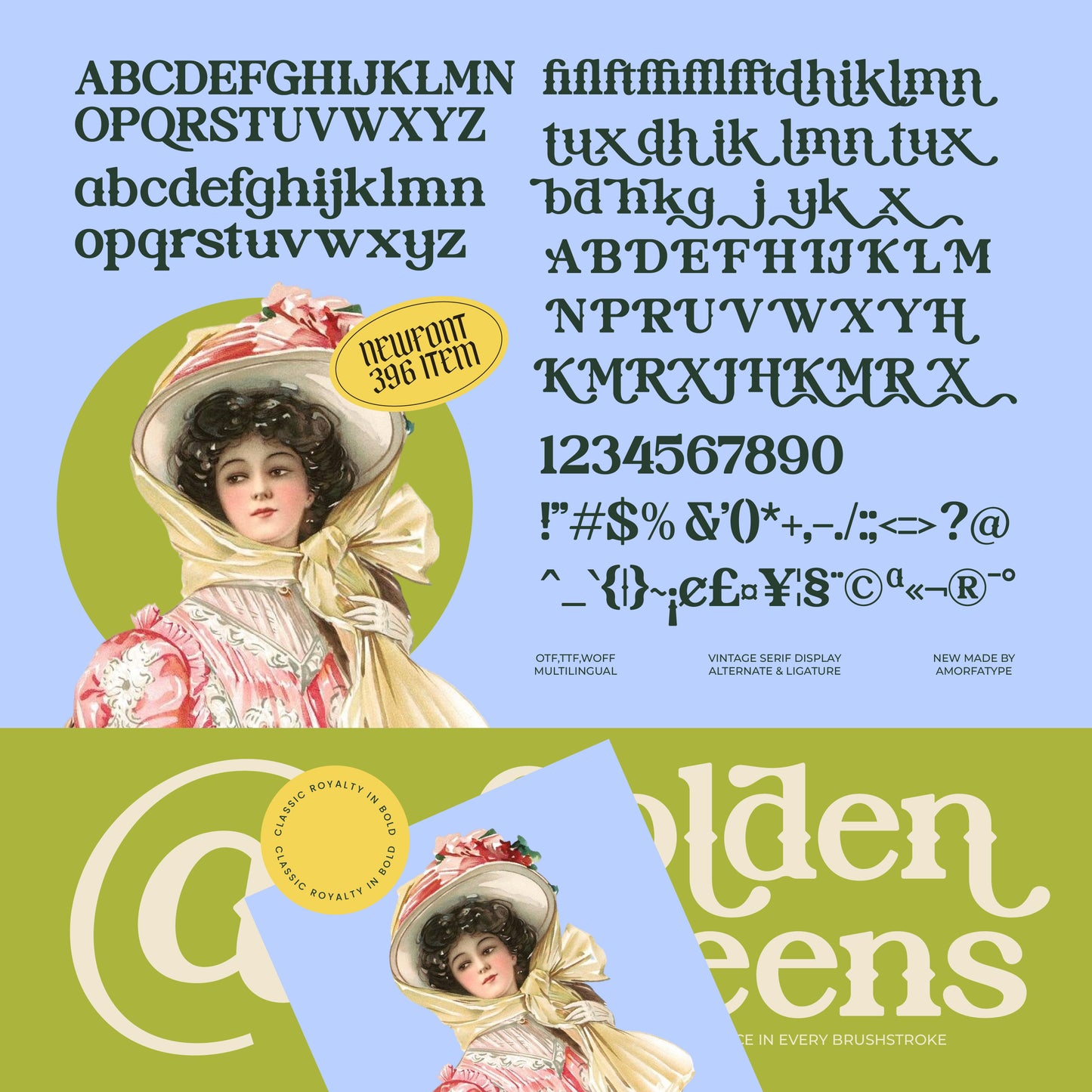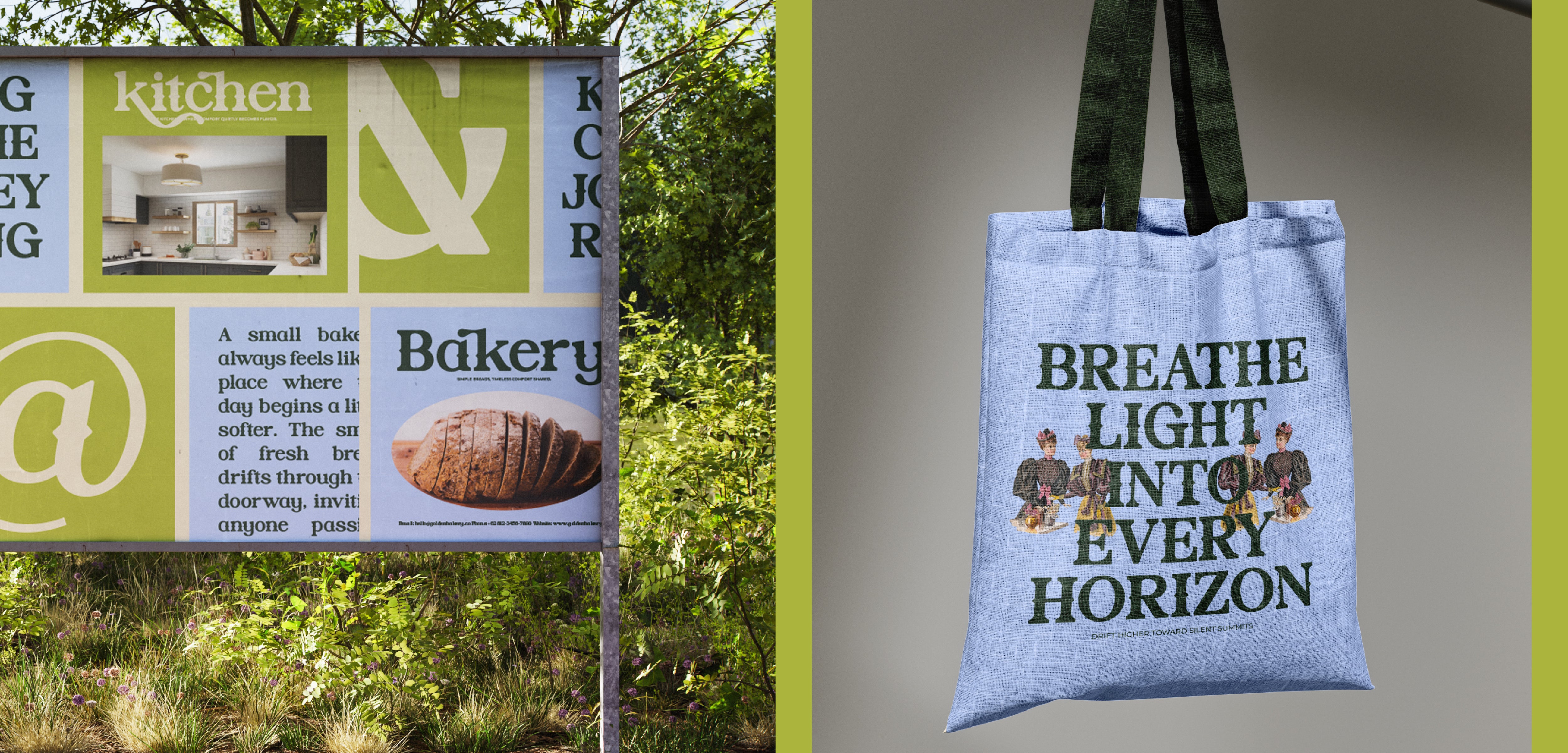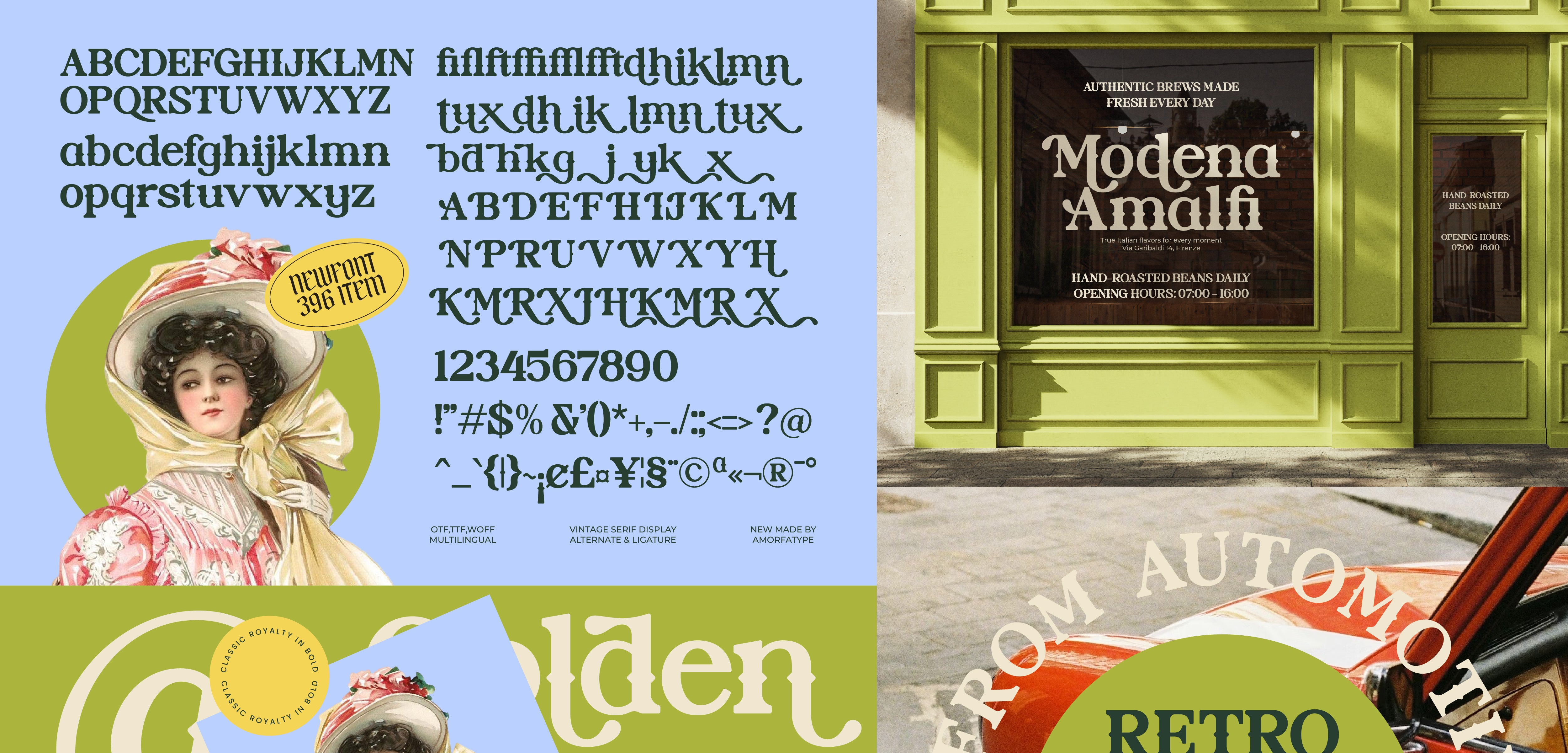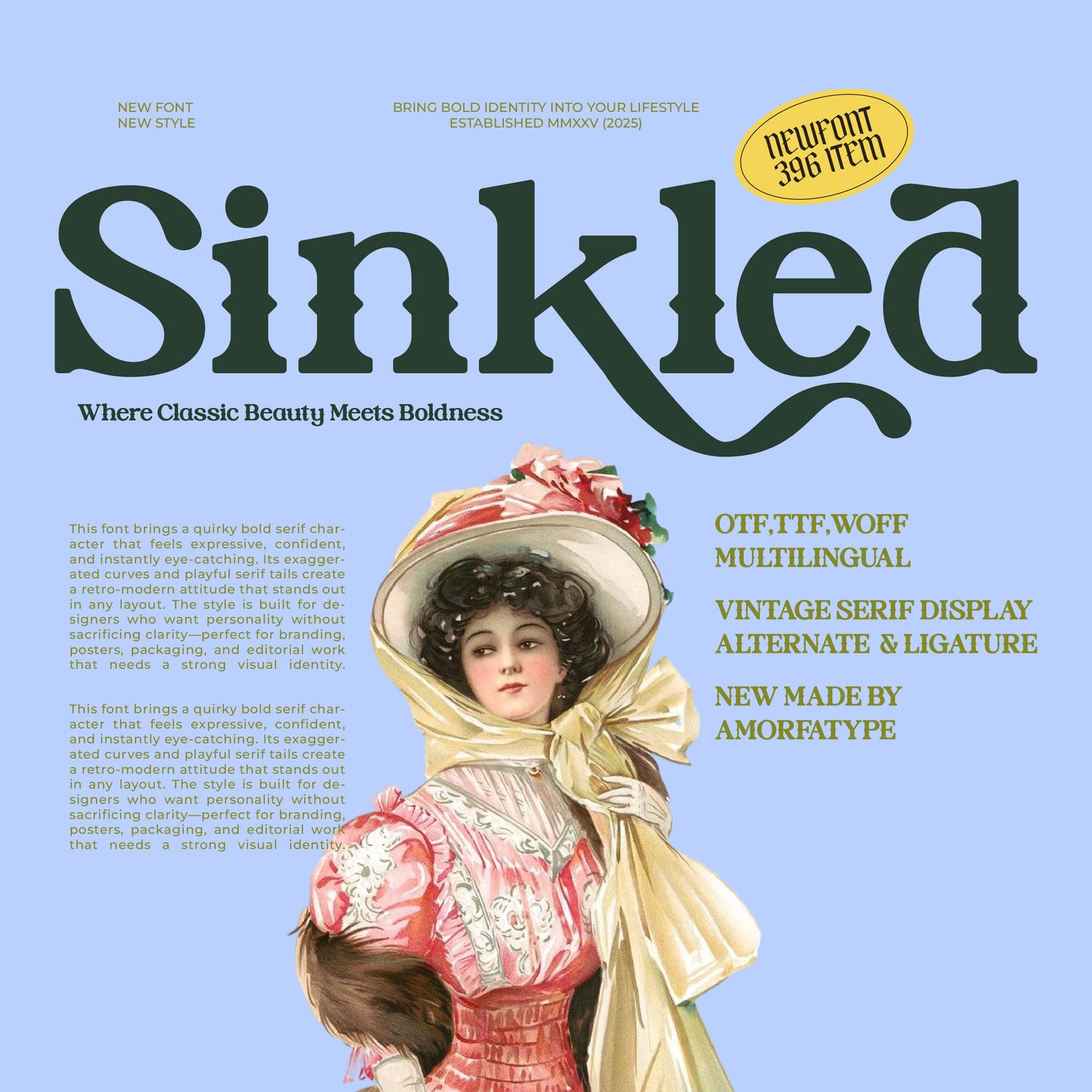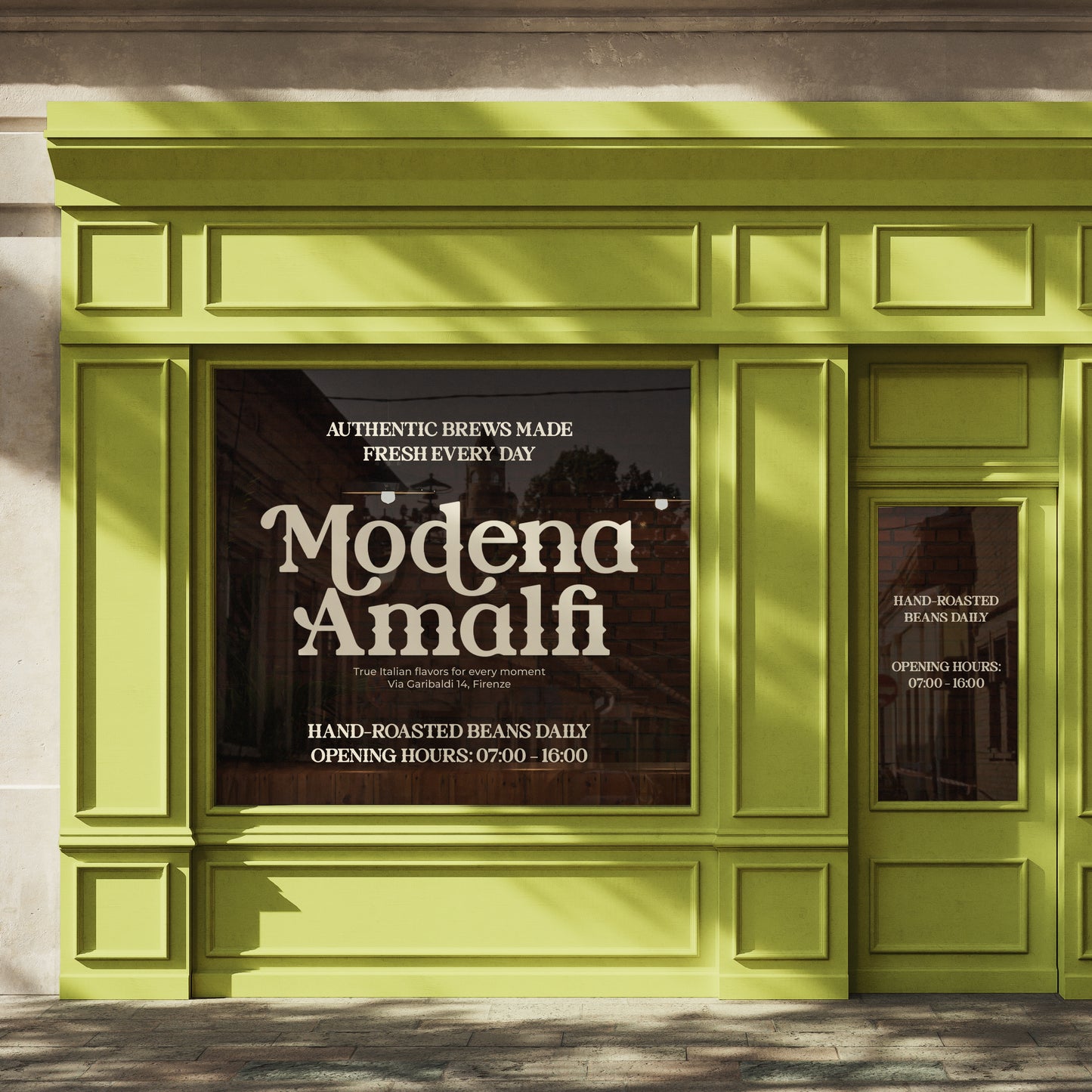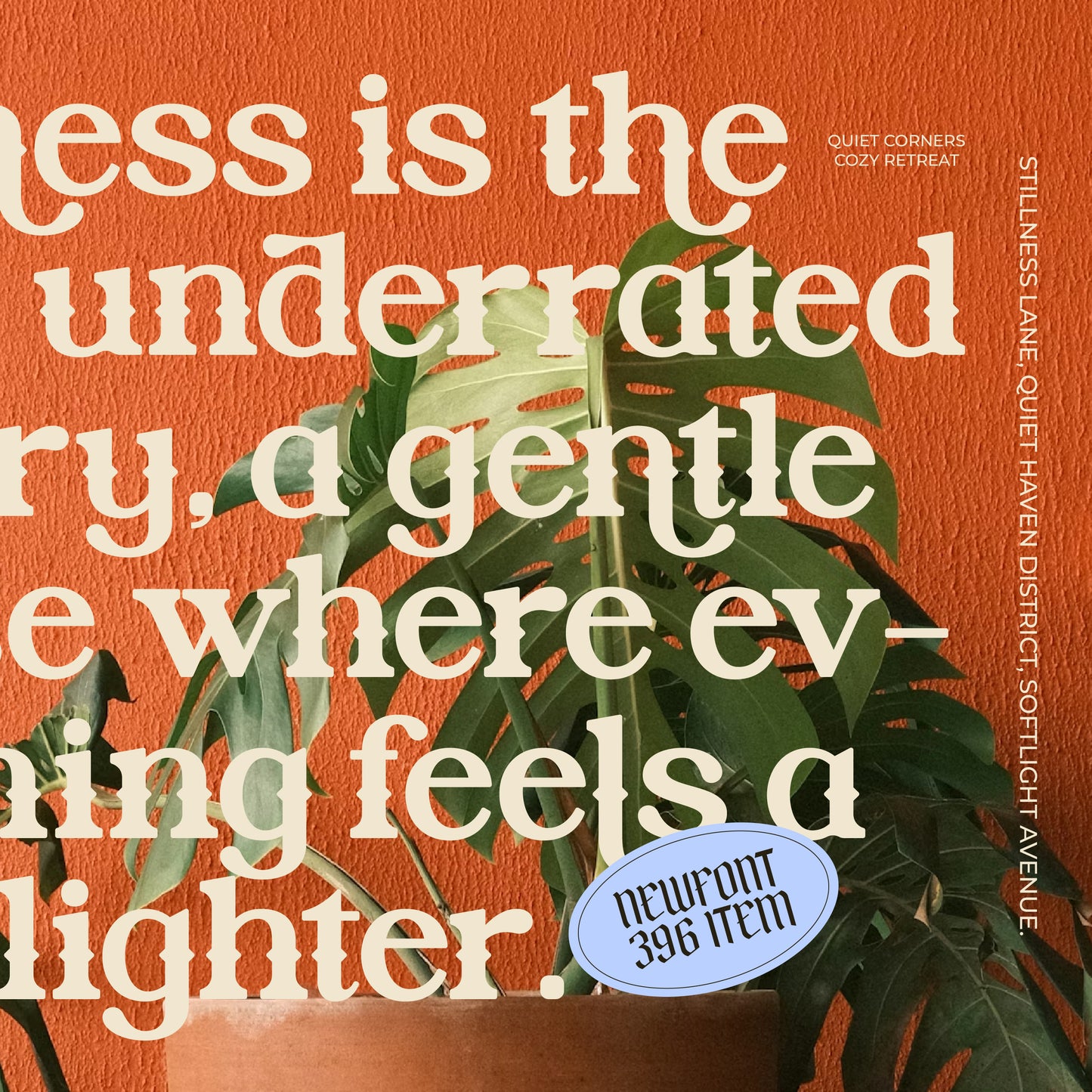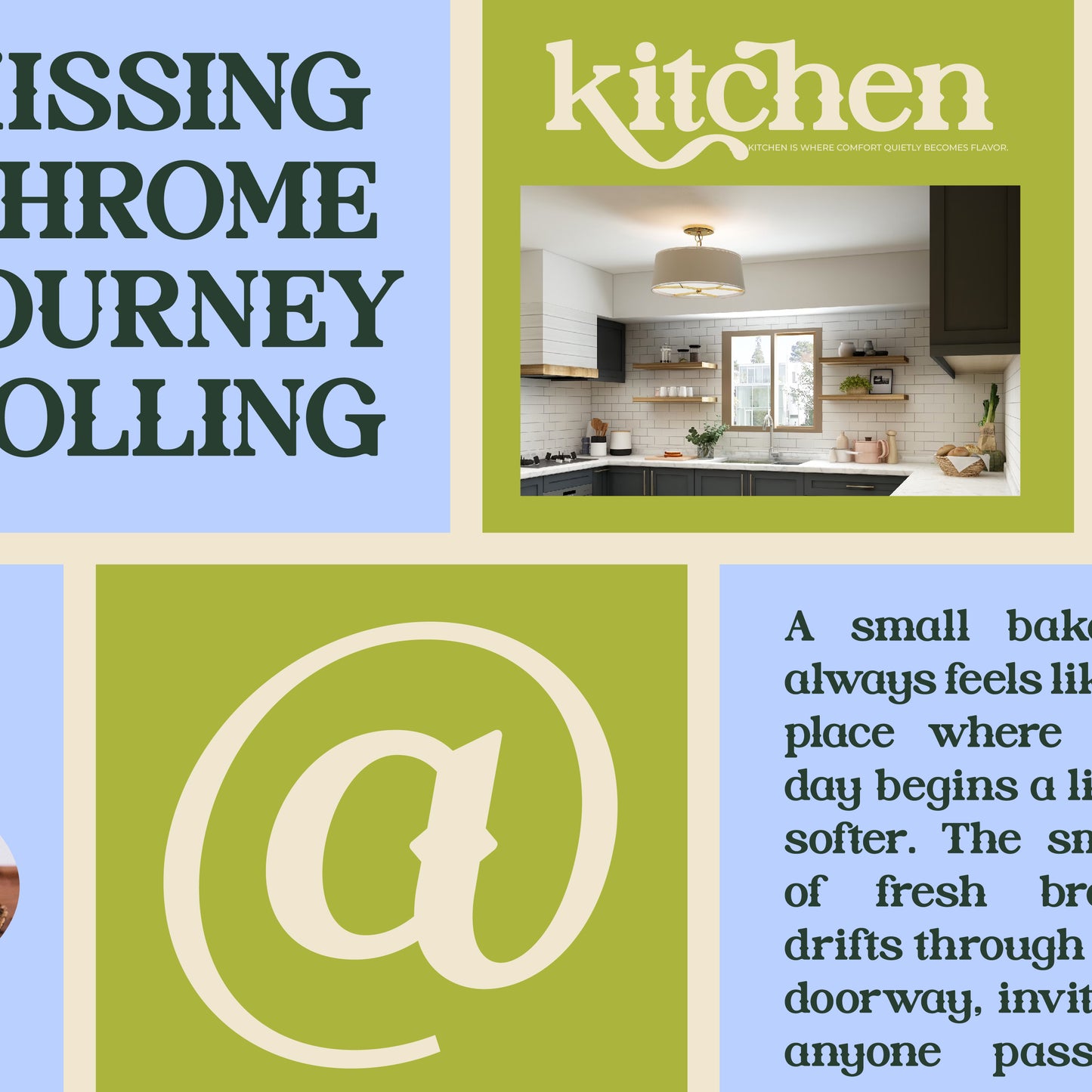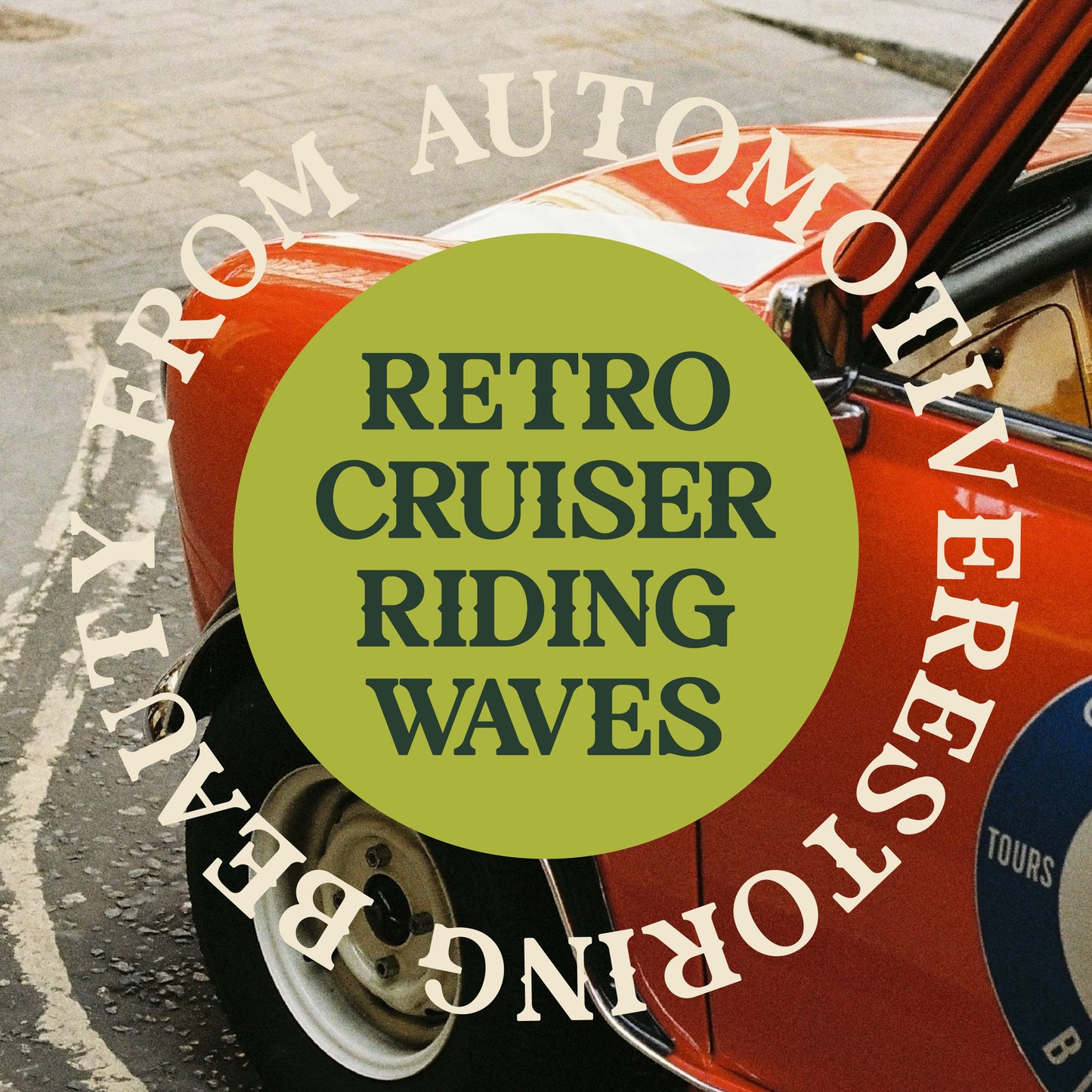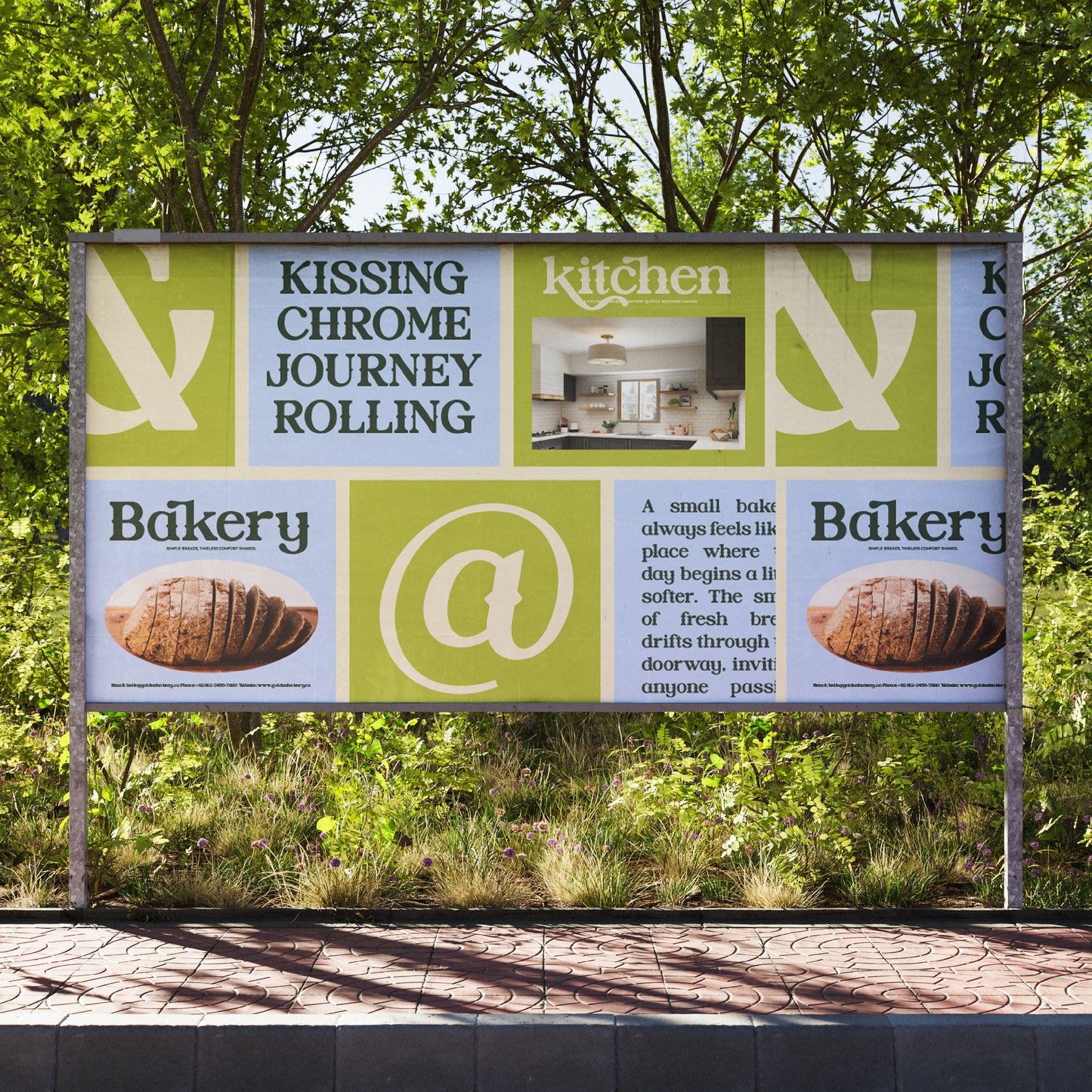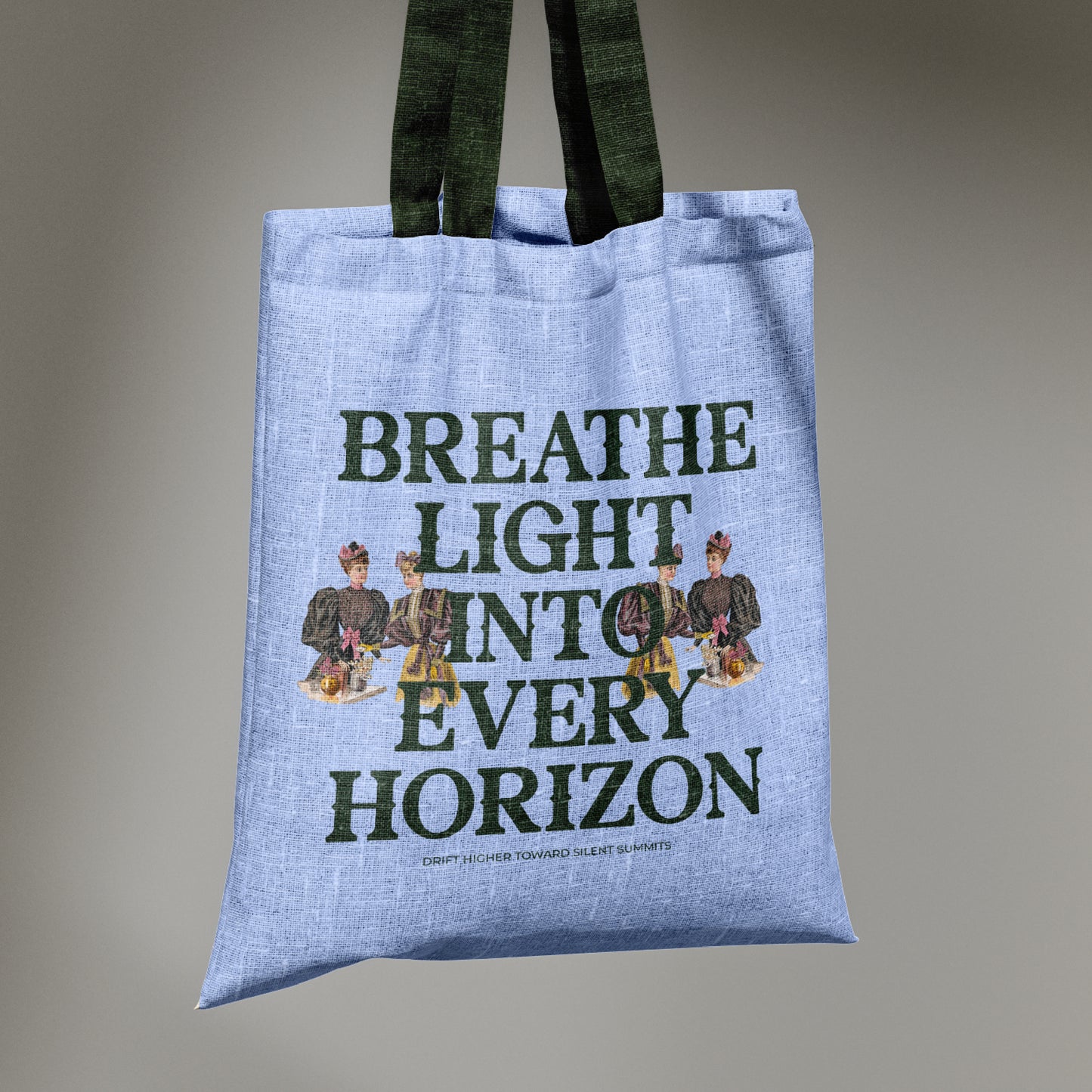
Sinkled Vintage
Amorfatype
Sinkled is a vintage serif display font that combines classic elegance with bold decorative character. Inspired by timeless typography and refined craftsmanship, Sinkled features distinctive letterforms, stylish curves, and sophisticated details that create a memorable visual impact.
Perfect for luxury branding, vintage-inspired packaging, editorial layouts, logos, fashion campaigns, restaurant branding, product labels, posters, and premium marketing materials.
— LIGATURES & STYLISTIC ALTERNATES